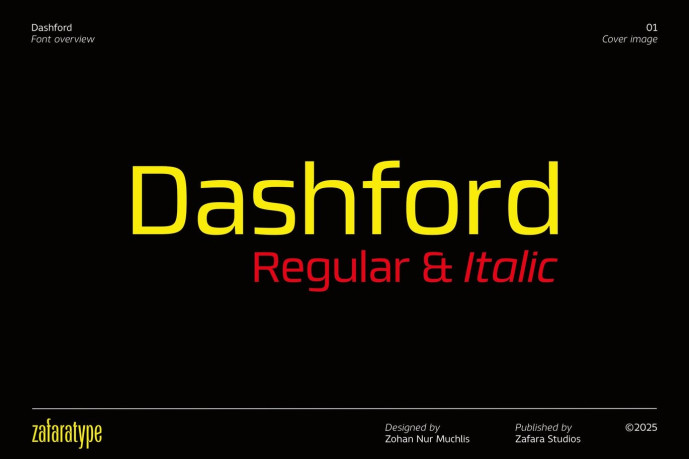
Dashford Regular Font
Designer: Zohan Nur Muchlis
Dashford is a sans-serif typeface designed to be strong, functional, and effortlessly modern. Its clean structure, bold presence, and solid geometric foundation ensure high legibility and lend a modern, trustworthy tone, ideal for branding, digital interfaces, editorial layouts, signage, packaging, and more.
Key Features:
Extended Latin support
456 glyphs per style
Language Support: Afrikaans, Albanian, Basque, Bosnian, Catalan, Croatian, Czech, Danish, Dutch, English, Estonian, Faroese, Filipino, Finnish, French, Galician, German, Hungarian, Icelandic, Indonesian, Irish, Italian, Latvian, Lithuanian, Malay, Norwegian Bokmål, Polish, Portuguese, Romanian, Slovak, Slovenian, Spanish, Swahili, Swedish, Turkish, and Zulu.